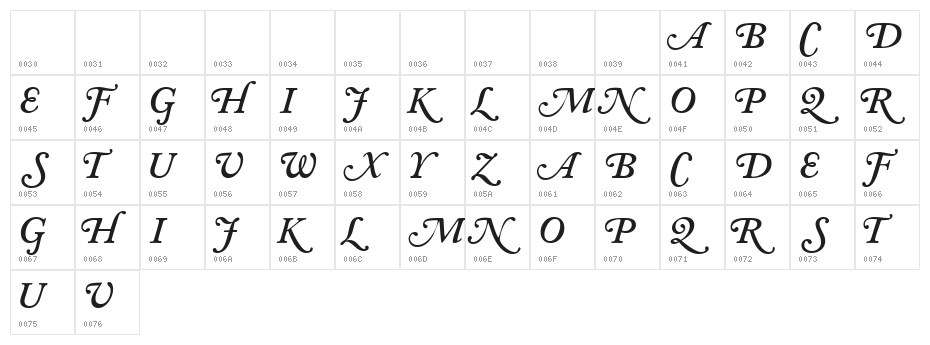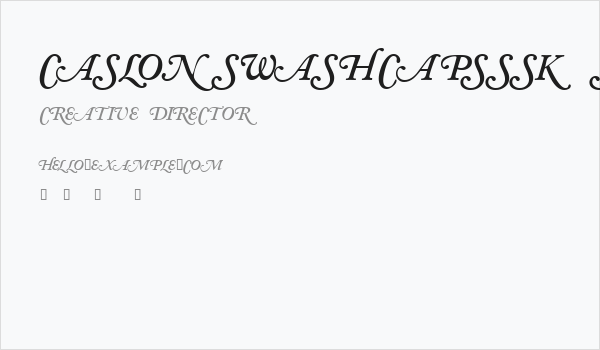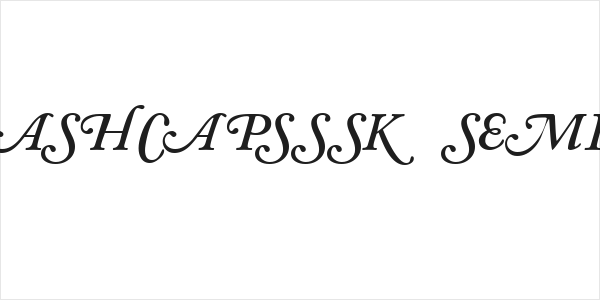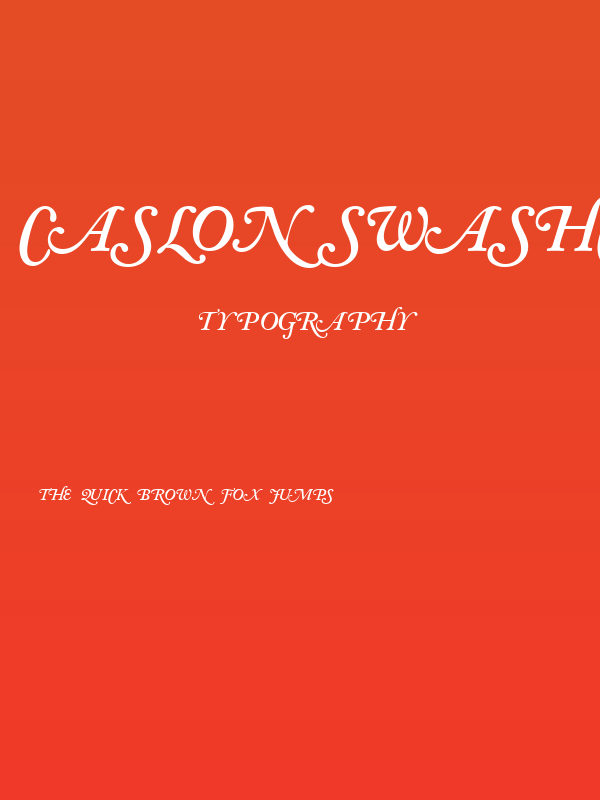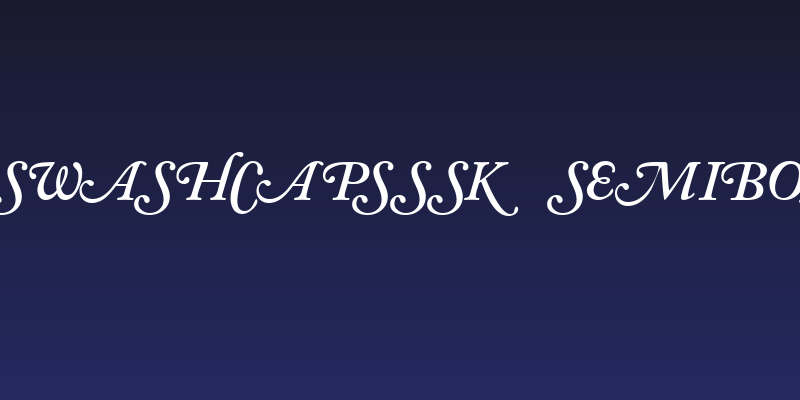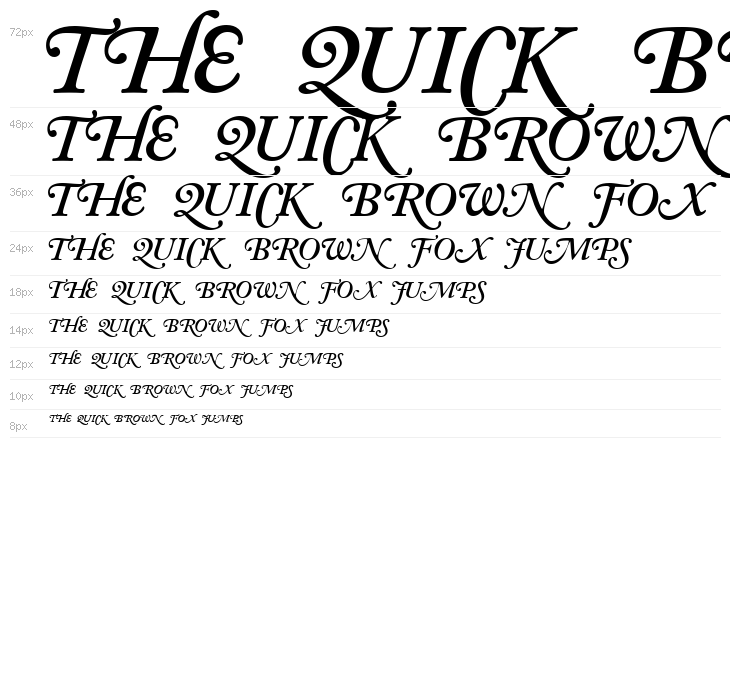
CaslonSwashCapsSSK SemiBoldItalic Font
CaslonSwashCapsSSK SemiBoldItalic Description
This font features elegant swashes and a semi-bold weight, giving it a sophisticated and decorative appearance. The italic style adds a sense of movement and fluidity, making it ideal for formal and artistic applications. The uppercase letters are particularly ornate, with extended flourishes that enhance their visual appeal. The lowercase letters maintain a consistent style, complementing the uppercase with their own subtle curves. The overall design is reminiscent of classic calligraphy, offering a timeless and refined aesthetic. The font's contrast is medium, with noticeable variations in stroke thickness that add depth and interest.